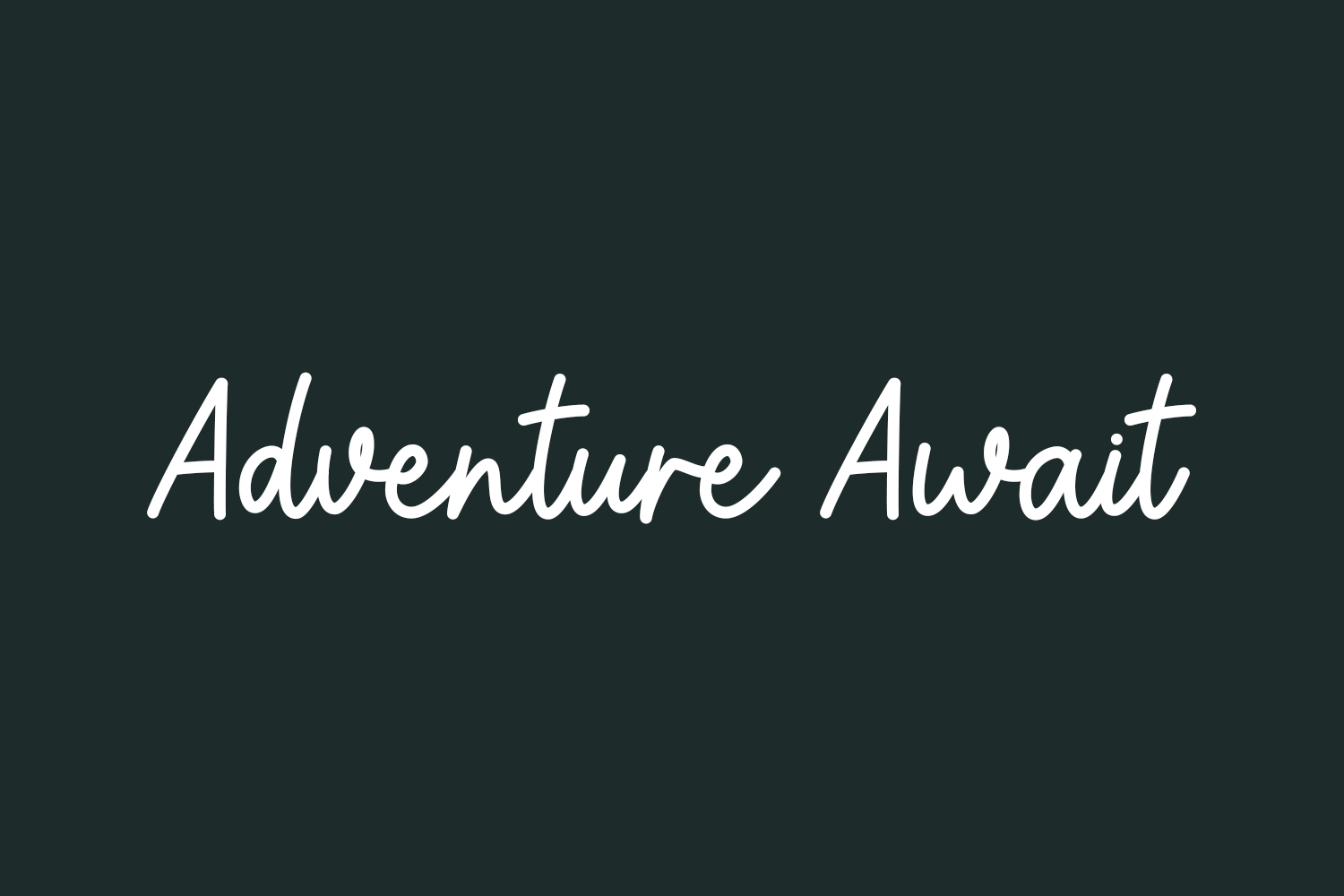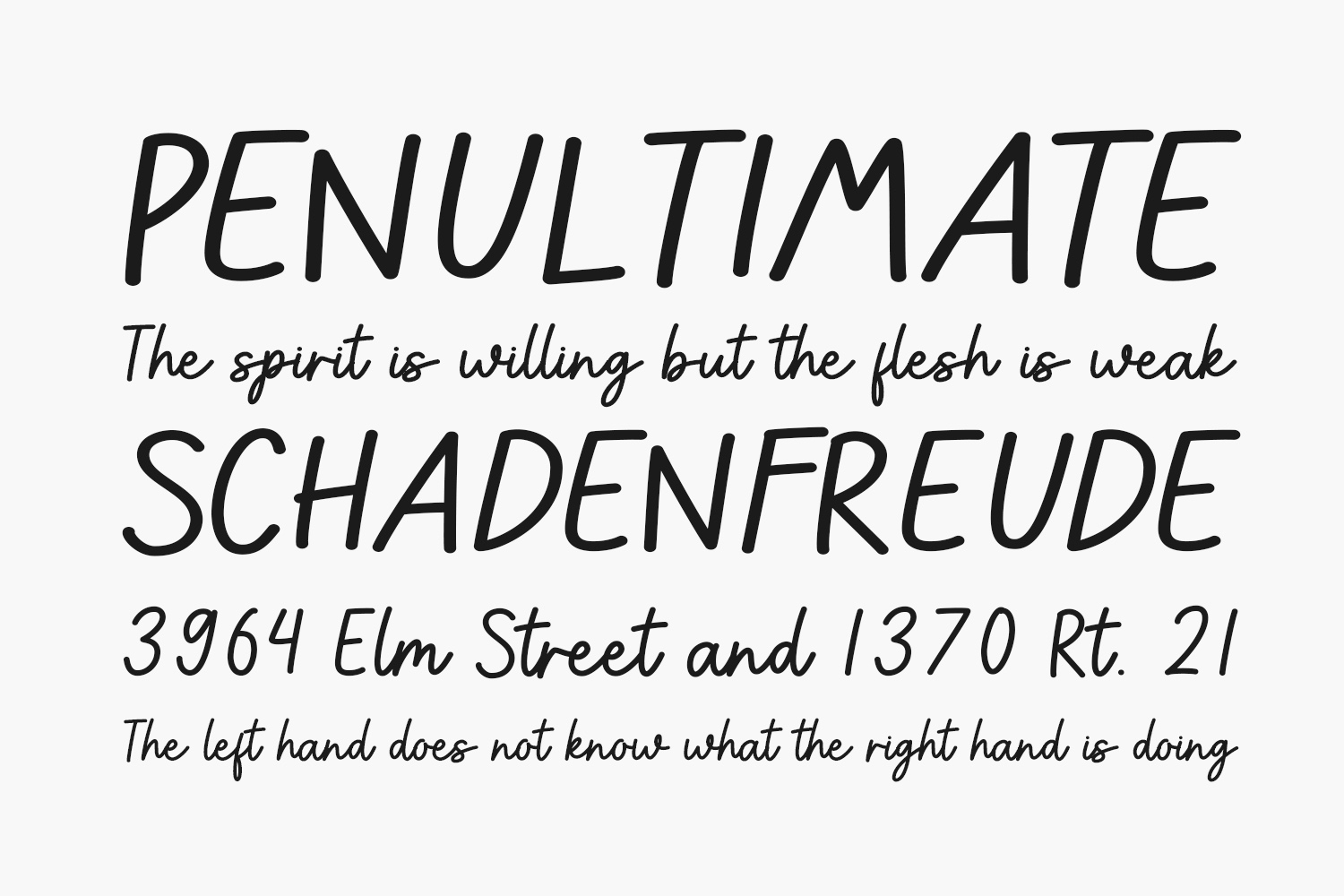
Adventure Await Free Font is a cute and simple lettered handwritten font that can be used for all chalkboard quotes or teaching material! Its authentic look will add a personal and realistic feel to your designs. Adventure Await Free Font was designed by Graphix Line Studio and is free for personal use only. Please purchase the full version for commercial use.